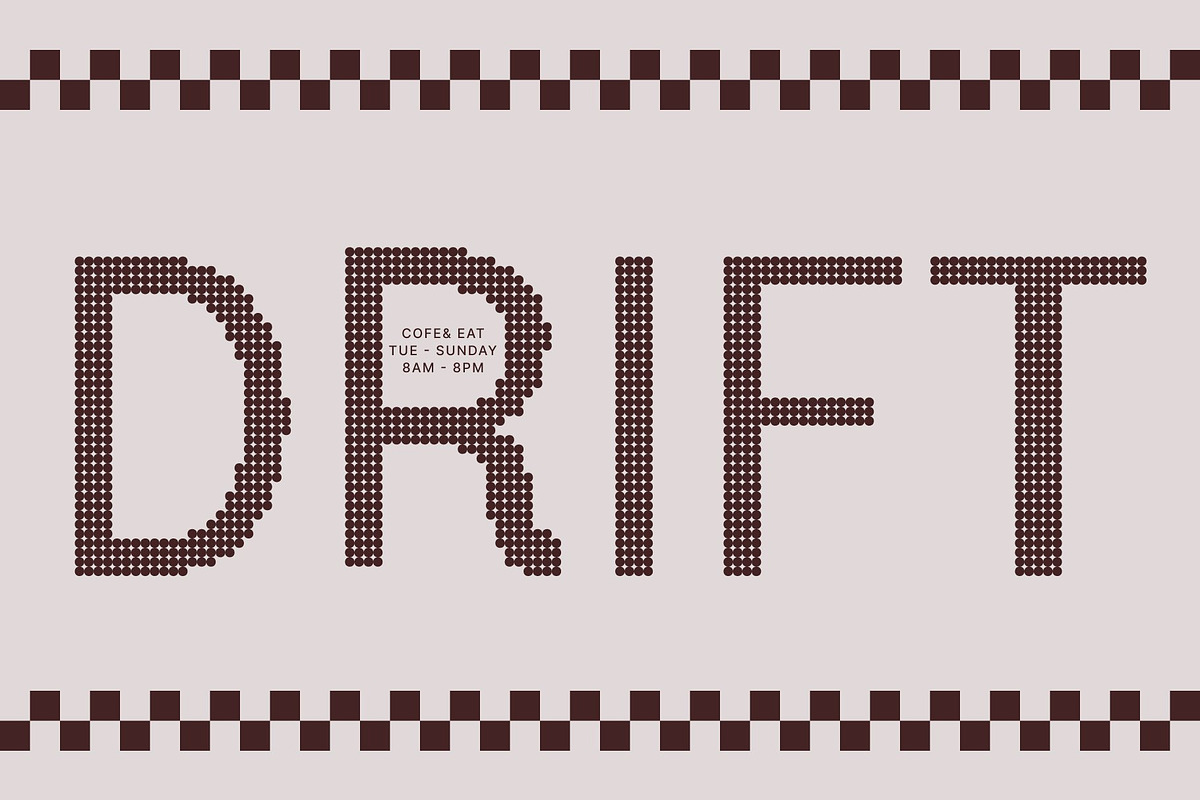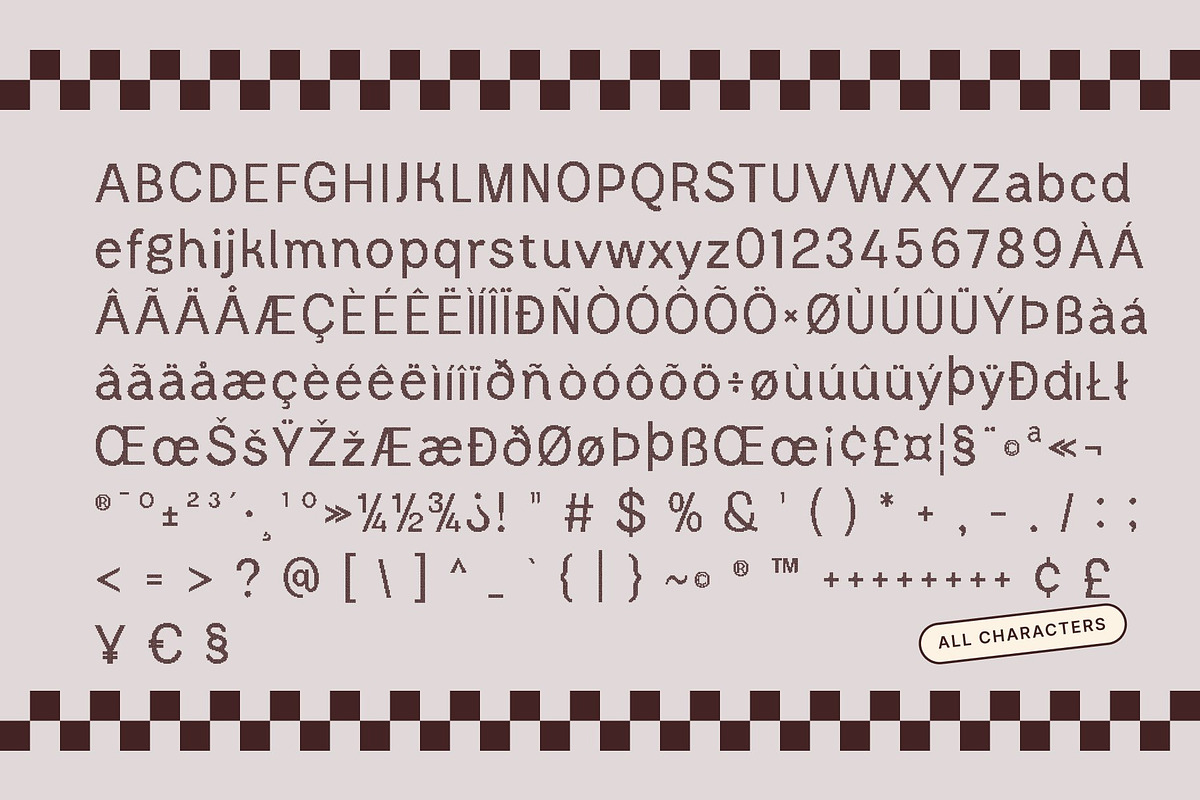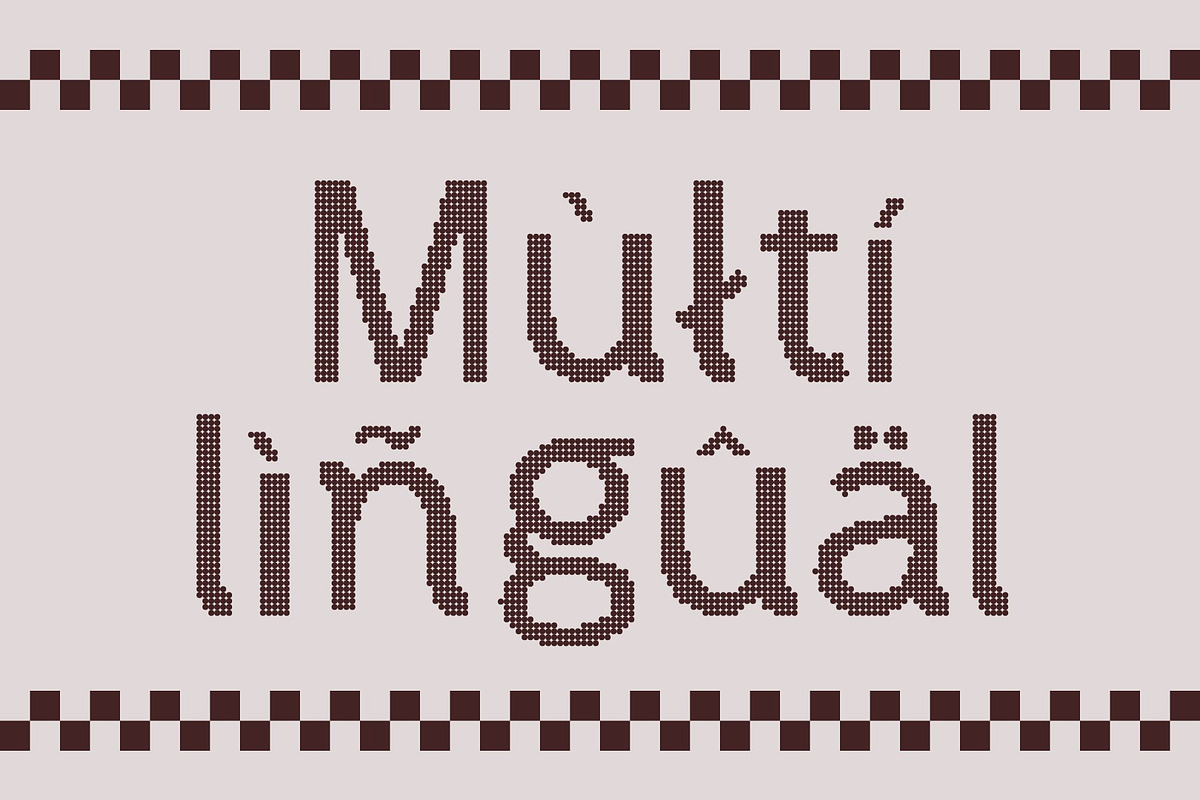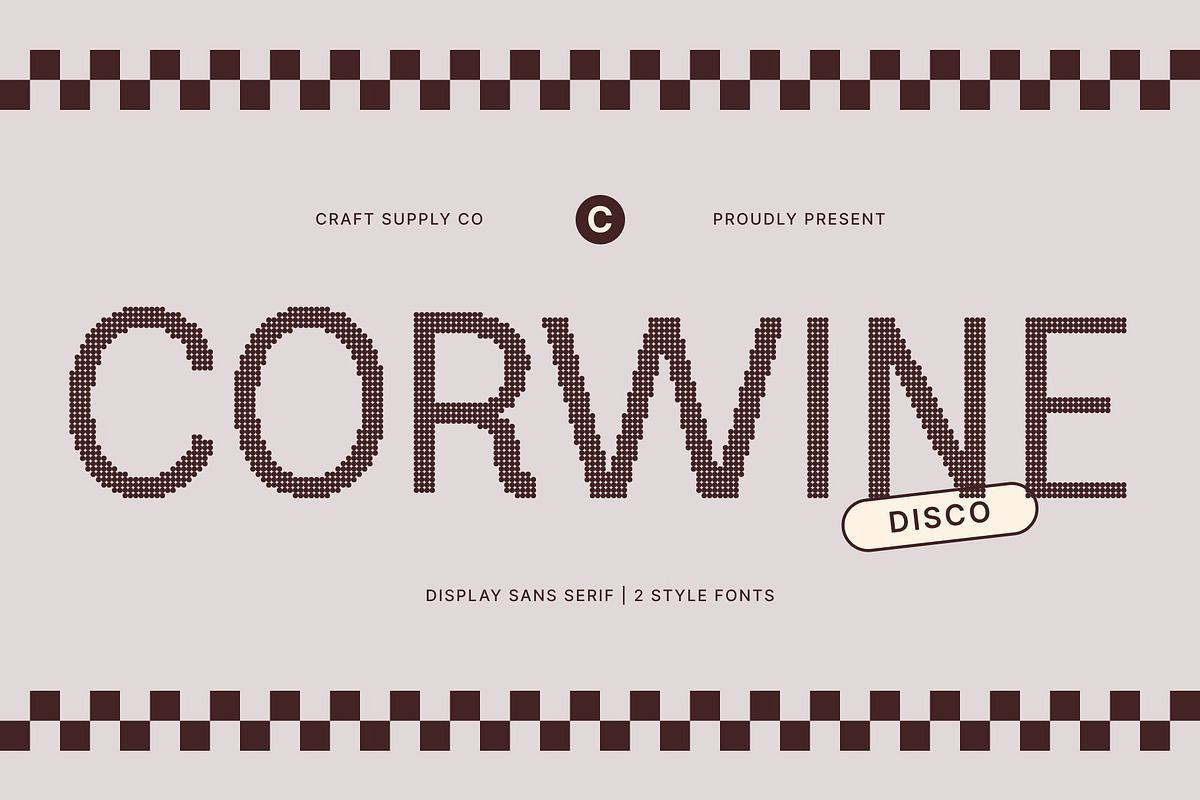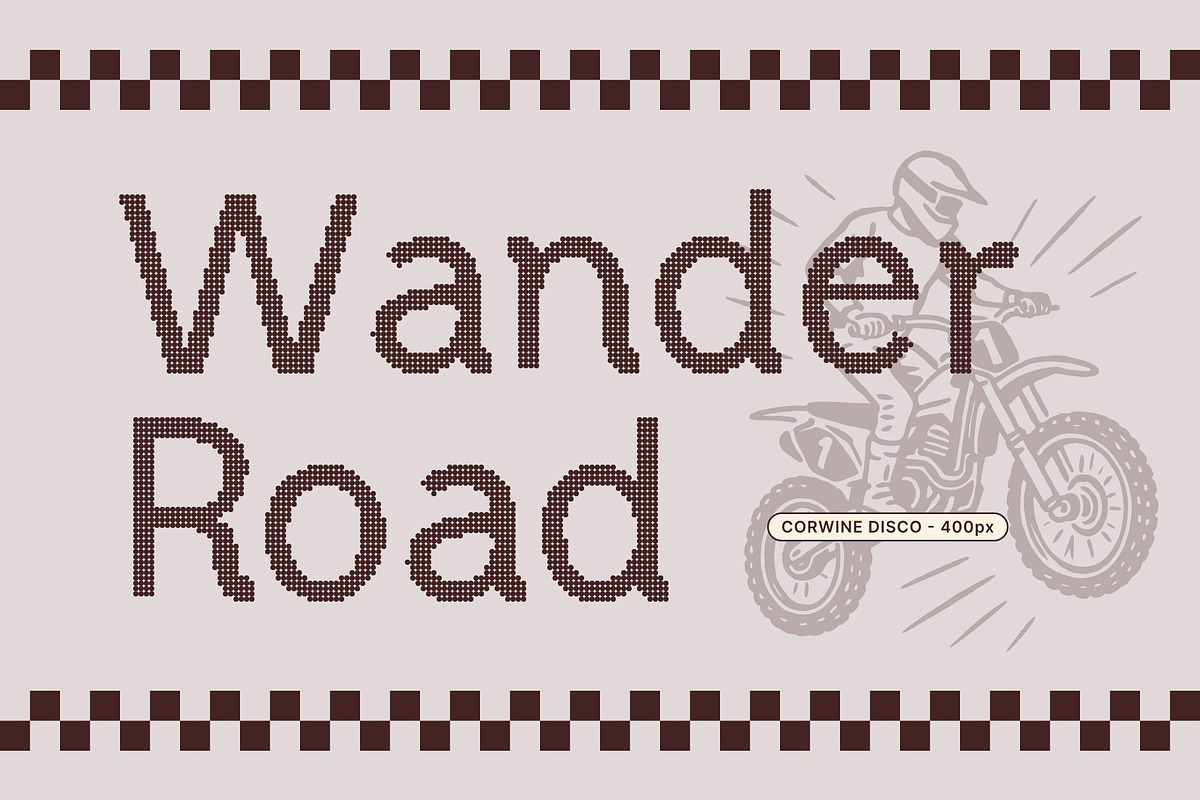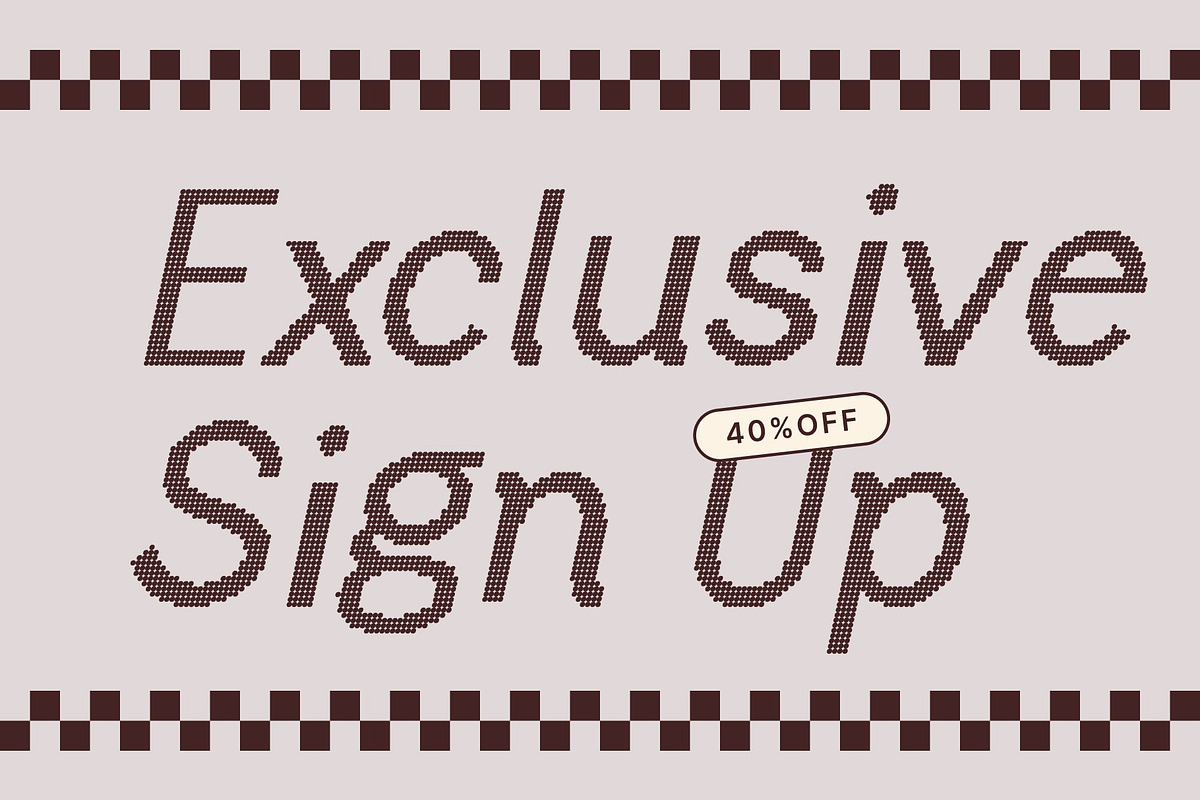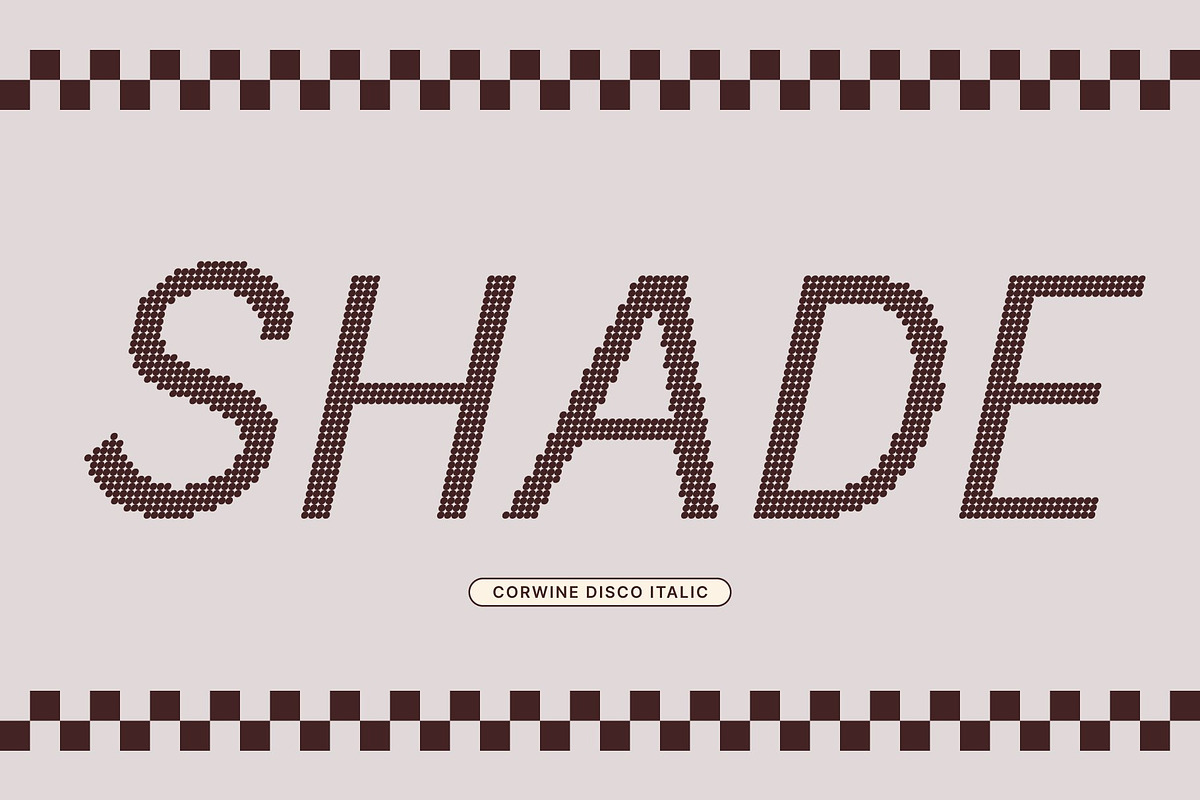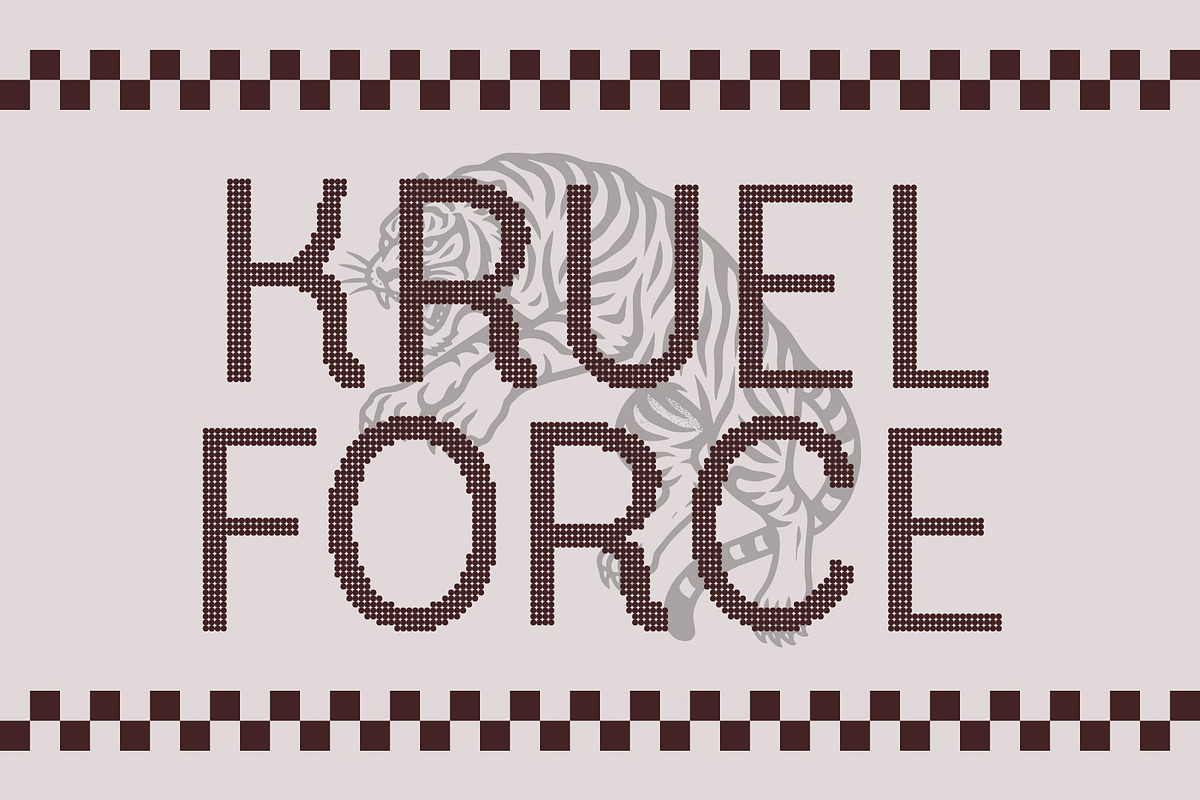
Corwine Disco
Corwine Disco – Modern Simplicity with a Lively Sparkle
Clean and Contemporary Sans Serif Design This font embodies modern sophistication through its clean lines and minimalist sans serif structure. Each character is designed with geometric precision, creating a professional and stylish impression that fits perfectly in today’s sleek visual landscape.
Dynamic Disco Flair A subtle disco effect brings a radiant shimmer and energetic personality to the font. This touch of sparkle transforms its simplicity into something vibrant and glamorous, giving every design a lively, contemporary feel.
Versatile for Modern Design Projects Ideal for branding, posters, editorials, or creative layouts, this font adapts effortlessly to a variety of design contexts. Whether for highend branding or modern event visuals, it ensures clarity and visual impact.
Fresh, Eye-Catching, and Professional This font strikes the perfect balance between minimal elegance and dynamic expression, making it an excellent choice for designers seeking a modern sans serif with a confident, sparkling twist.